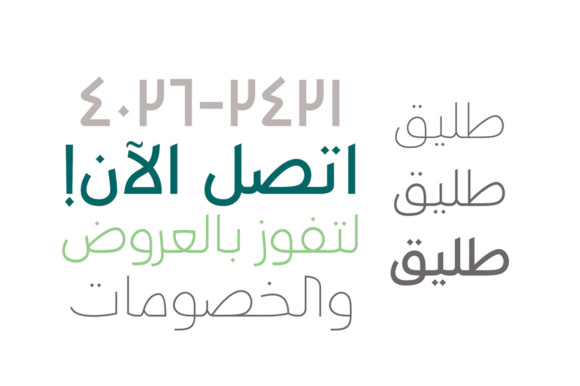
Journey through the world of Arabic typography with Taleeq, the captivating Arabic typeface designed by Mostafa El Abasiry. Inspired by the beauty of the written word, Taleeq effortlessly blends tradition and modernity, offering a visual experience that is both captivating and timeless.
With its chirographic structure, Taleeq dances across the page, mirroring the fluidity and grace of handwritten Arabic script. The three weights—Light, Regular and Bold—allow for a range of expressions, from delicate whispers to bold statements, giving you the freedom to craft designs that speak to your audience in a unique and personal way.
Immerse yourself in the rich cultural heritage of the Arabic language as you explore the intricate letterforms of Taleeq. Each stroke, each curve, and each embellishment is a testament to the artistry and craftsmanship that goes into the creation of this exceptional typeface. Whether you're crafting logos, designing posters, or creating stunning digital content, Taleeq is the perfect companion for projects that demand a touch of elegance and authenticity.
Unlock a world of creative possibilities with Taleeq. Its versatility extends across a wide range of applications, including publications, print, and advertising. Imagine your words taking flight on the wings of Taleeq, captivating readers and leaving a lasting impression.
Embrace the fluidity of Taleeq and let your designs flow with the grace and beauty of the Arabic script. Its intuitive design and user-friendly interface make it accessible to designers of all skill levels. Experience the joy of creating designs that resonate with your audience and leave them in awe.